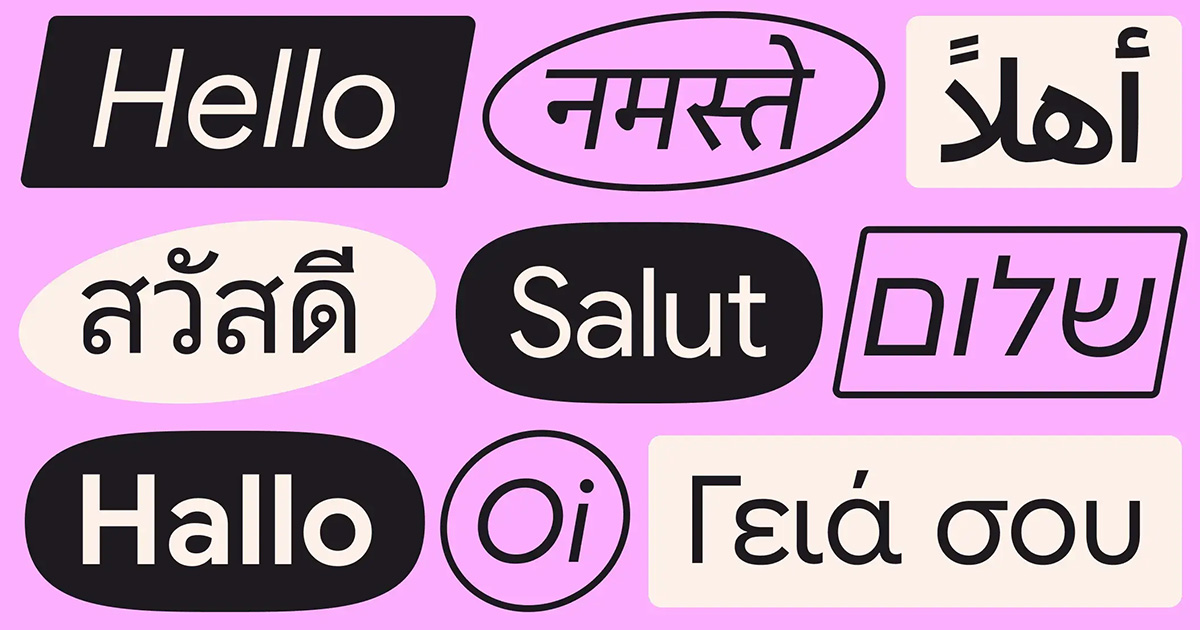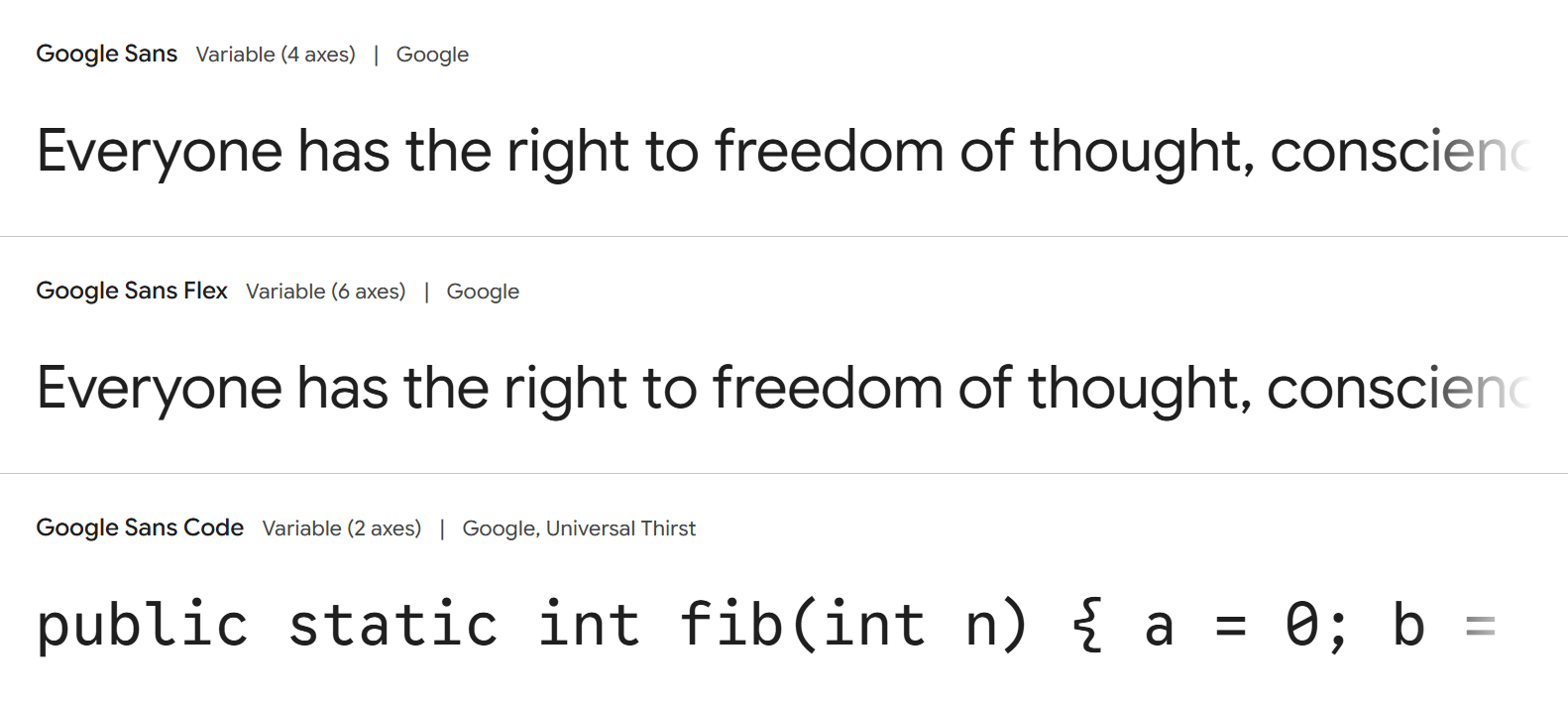
Google's iconic brand font is now free for anyone to use
You'll have seen Google Sans even if you didn't know it. The Google brand typeface is used across all of the company's marketing and UI design and in products from Search to Wallet.
With around 120 billion font requests a month, it’s one of the most-served fonts on the internet. But nobody outside of Google could use it – until now. The tech giant has made Google Sans and its variations open source, allowing anyone to download them from its library of free fonts (see our pick of the best Google fonts).
First developed around a decade ago, Google Sans has evolved over the years to meet changing needs.
It grew out of Product Sans, which was based on the clean geometry of the Google logo to allow the efficient creation of product logo lockups. But that typeface didn't translate well to marketing and advertising assets.
Colophon Foundry was tasked with developing Google Sans as a more versatile alternative. The type designers optimised character shapes, terminals, ascenders, descenders, x-heights and stroke contrasts to make the fonts suitable for longer blocks of text as well as for small text sizes on phones and tablets.
Google Sans Text followed in 2020 to work at smaller sizes for paragraphs and interface text. There's also Google Sans Mono, which in 2025 evolved into Google Sans Code. Developed by Universal Thirst , that's the typeface now used to display code in Gemini.
The latest addition to the family is Google Sans Flex. This was developed with variable font technology at Font Bureau and Pathfinders to allow precise control over weight, width, optical size, slant, grade and roundedness. It also provides support for non-Latin scripts like Arabic, Chinese and Thai.
Google says it's releasing its brand font into the wild to avoid fragmentation and allow developers and designers to “bridge the visual gap between first-party and third-party apps”.
It notes that until now, you might see Google Sans in Gmail, then open WhatsApp and see Roboto or a device-specific font. It sees that as a “persistent, if subtle, point of friction”.
This fragmented visual language, unlike the unified font experiences on some other platforms, has prevented a seamless digital experience. “It just doesn’t feel as nice,” stresses Visual Designer Megan Lynch. “On a subconscious level it impacts the experience.”
By making Google Sans open source, it hopes to allow UI designers in particular to craft a more unified experience across devices and platforms with clear, comfortable interface designs.